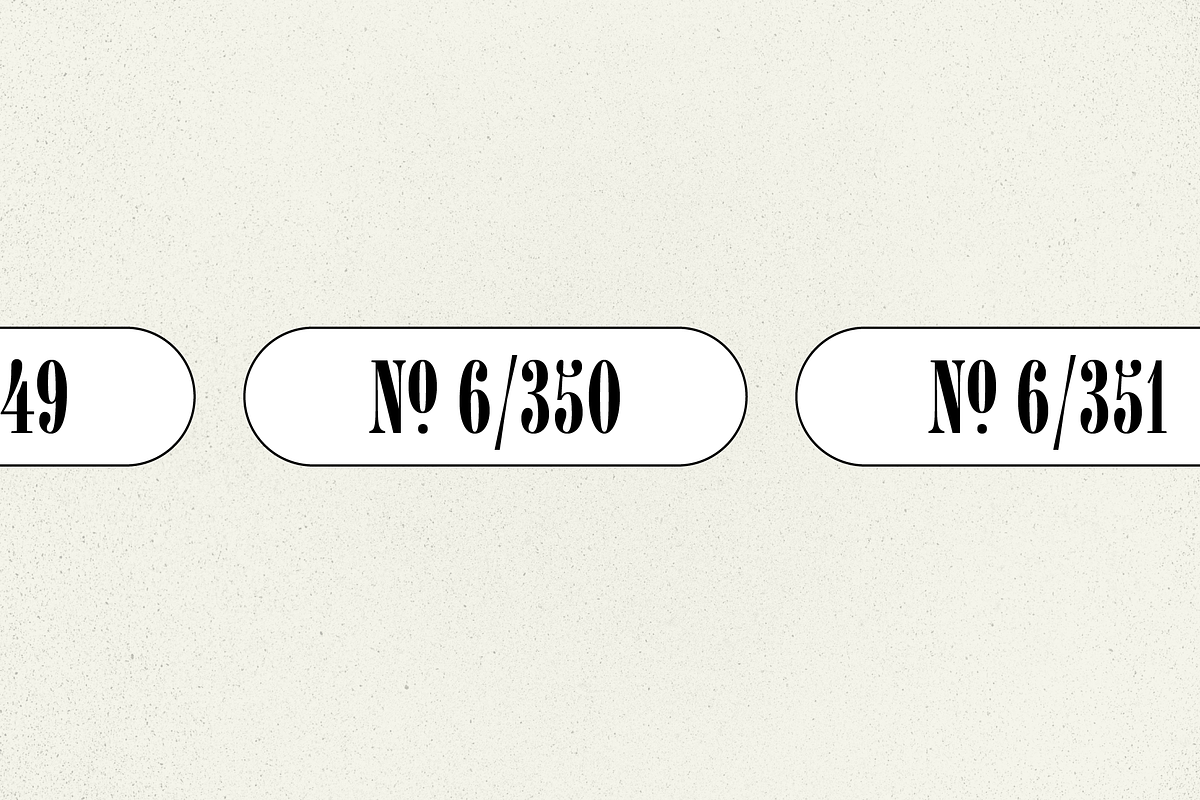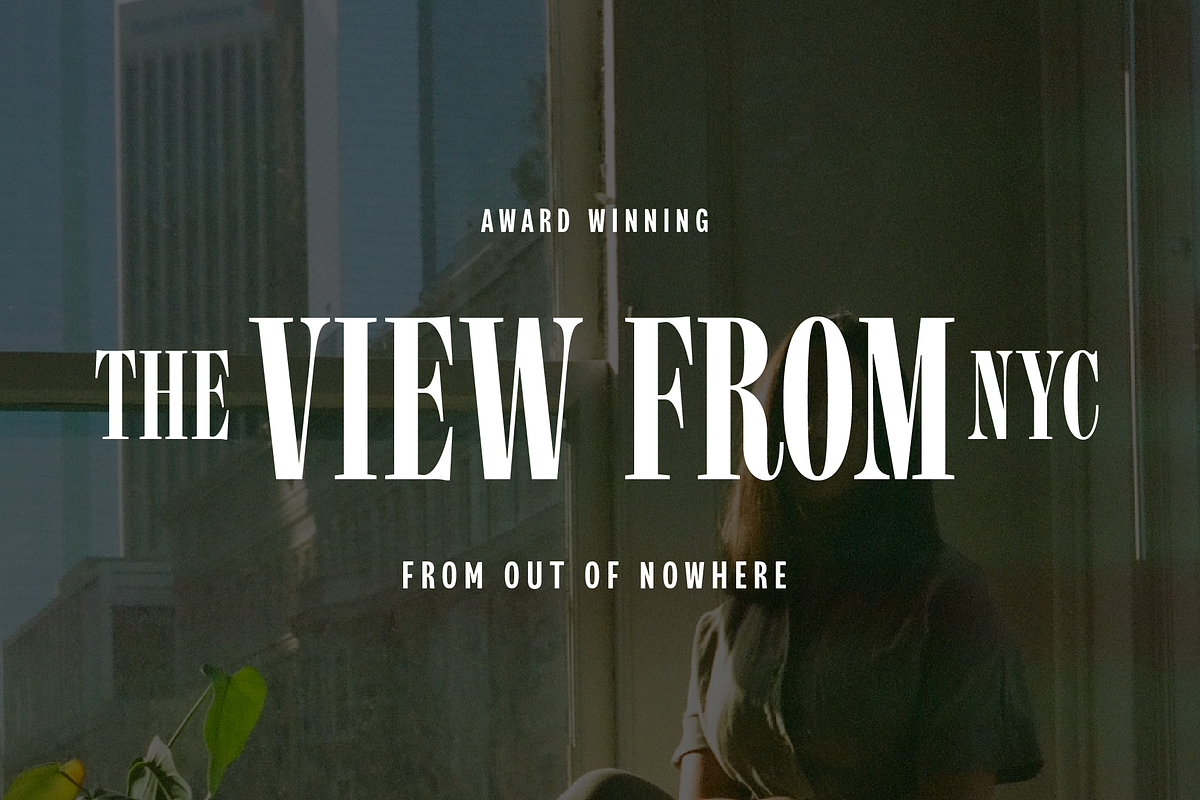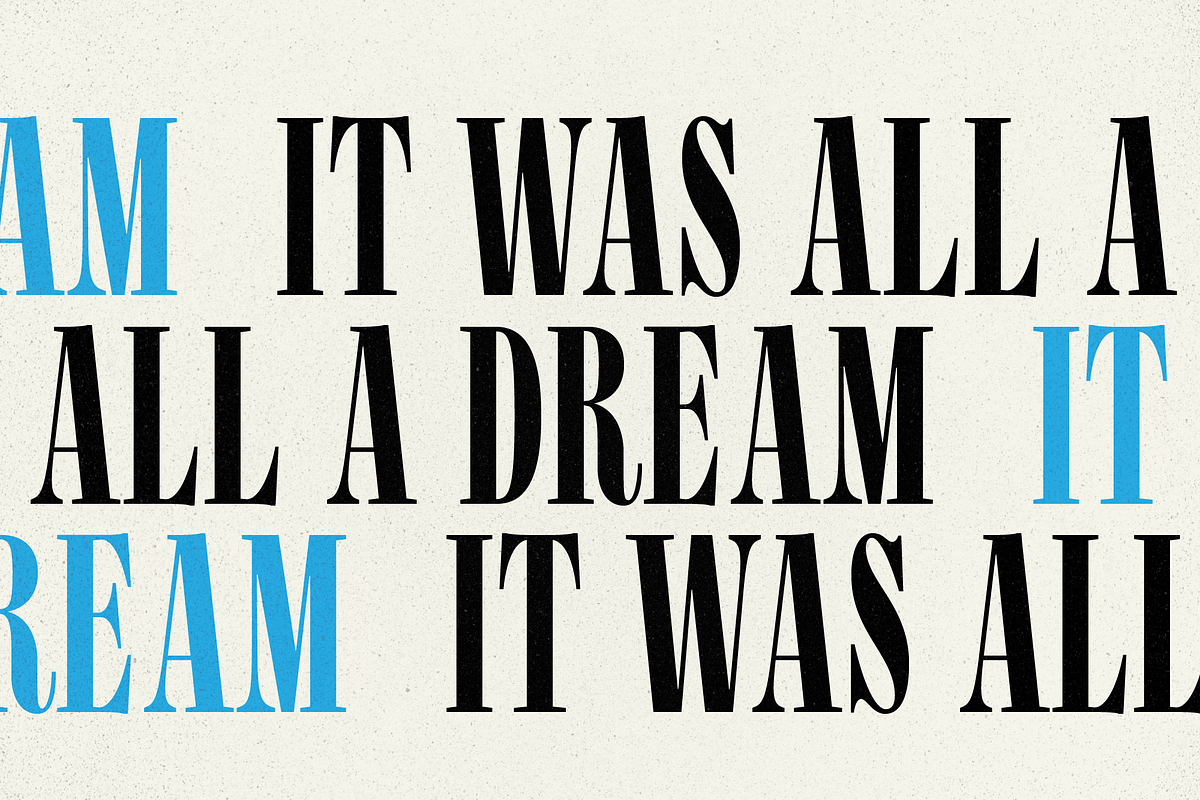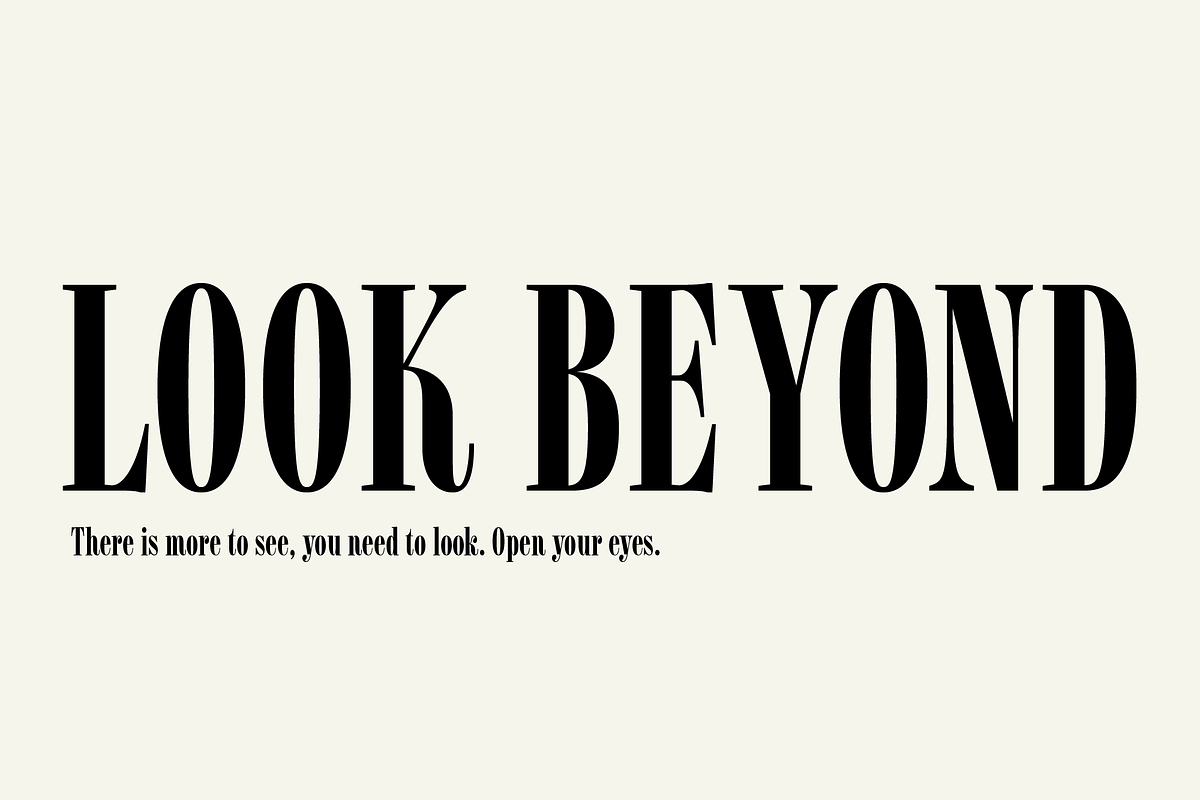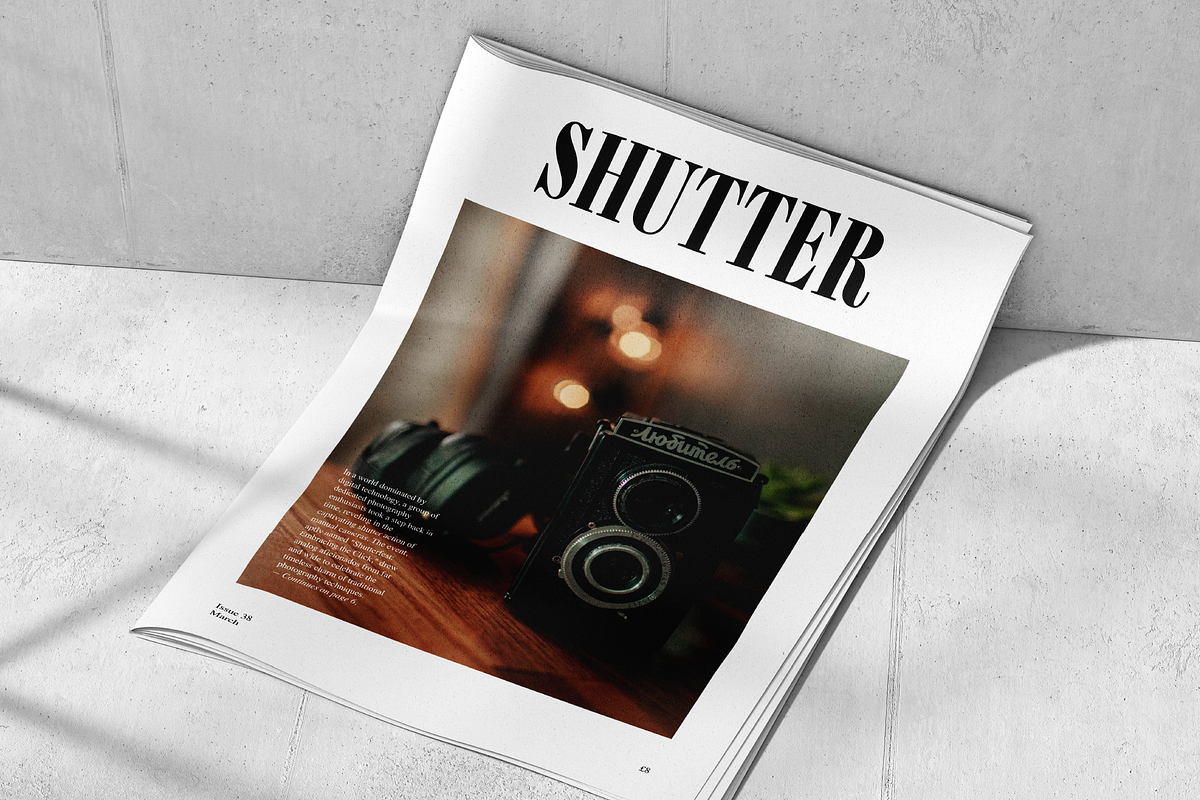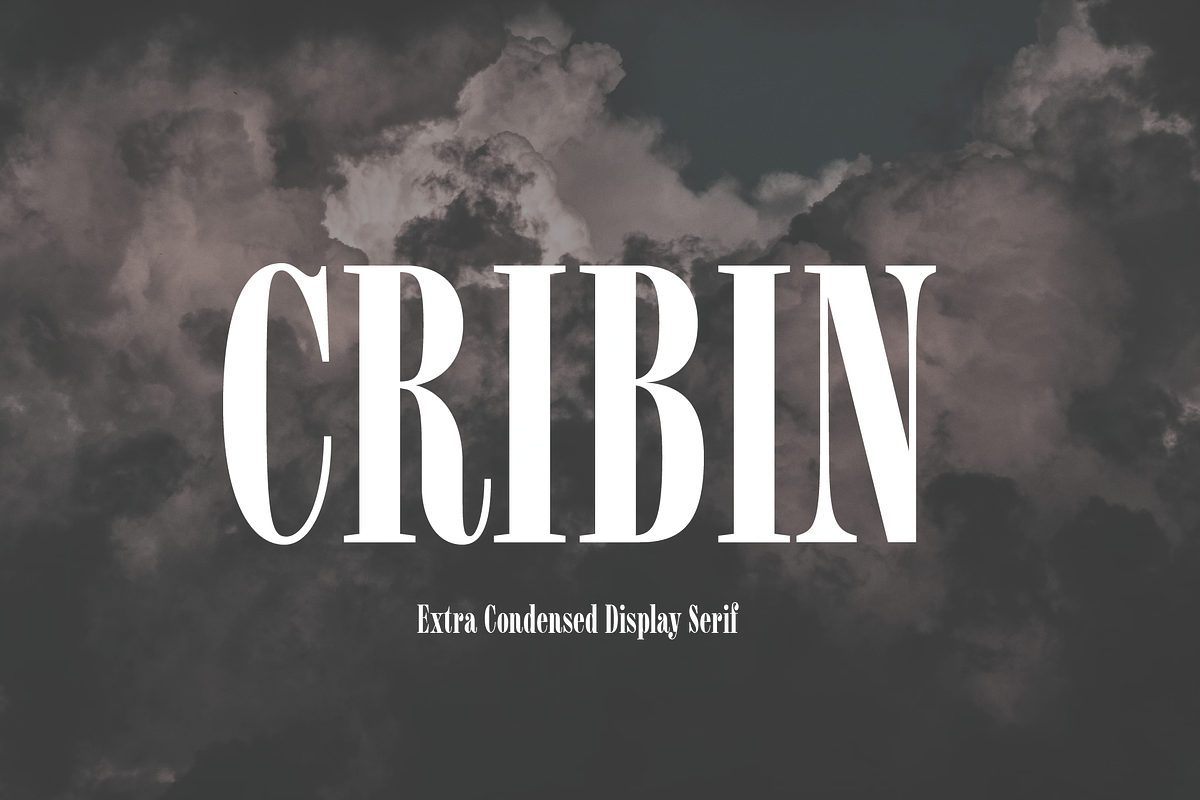
Cribin A condensed serif
Introducing Cribin: A Playful Condensed Serif Inspired by 90s Grunge and Vintage Aesthetics.
Unleash your creativity with Cribin, a distinctive display font that seamlessly blends the rebellious vibe of 90s grunge music, the timeless charm of vintage letterpress, and the bold impact of classic posters. Its condensed form, strong serifs, and high contrast make every character a work of art, inviting designers, logo enthusiasts, and magazine creators to infuse projects with a touch of attitude and sophistication.
Designed to captivate, Cribin adds character to every design element, from striking logos that demand attention to captivating headlines that invite readers to explore further. Whether on the web, in print, or across branding and editorial projects, Cribin's versatility ensures your creations stand out.
Experience the fusion of 90s nostalgia and contemporary design prowess with Cribin. Elevate your projects today.